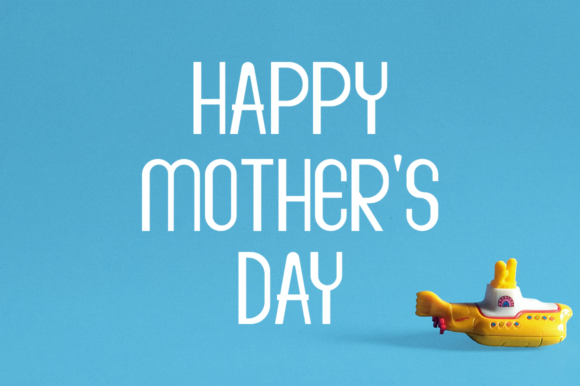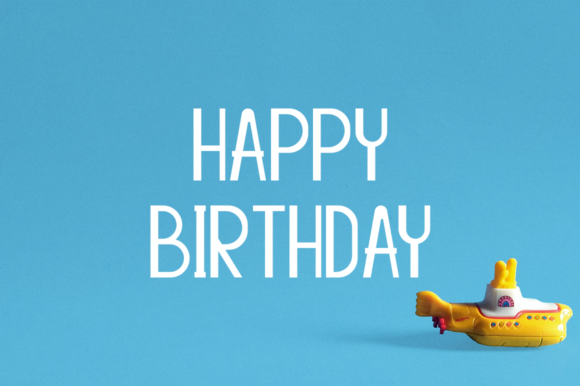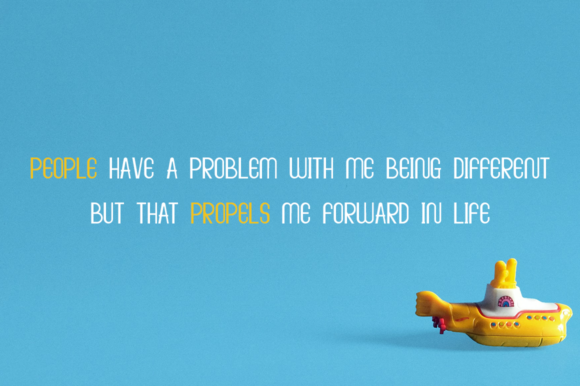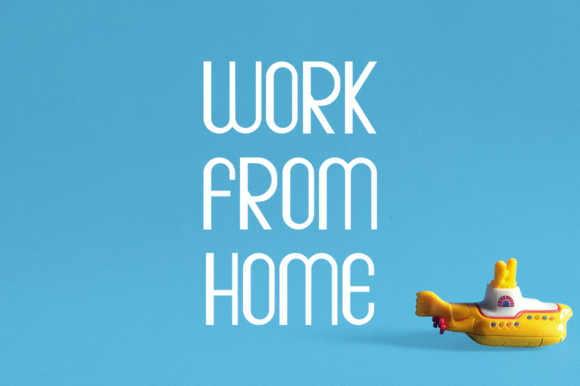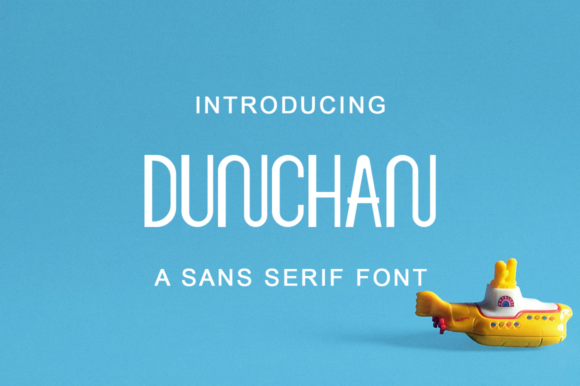
Introducing Dunchan: The Modern Sans Serif Font for Crafty Ideas
In the world of typography, fonts play a crucial role in conveying messages, expressing creativity, and setting the tone for a brand or project. For designers, crafters, and DIY enthusiasts, finding the perfect font can be a daunting task. However, if you’re looking for a modern and minimalistic sans serif font that can elevate your crafty ideas, look no further than Dunchan.
What is Dunchan Font?
Dunchan is a contemporary sans serif font designed to provide a clean and sophisticated look to various creative projects. Its original design makes it an excellent choice for a wide range of applications, from letterheads and titles to stationery and more. With its simple yet elegant design, Dunchan is perfect for those who appreciate minimalism and modernity.
Key Features of Dunchan Font
- Modern and Minimalistic Design: Dunchan boasts a sleek and modern design that is both clean and elegant. Its minimalistic approach ensures that your text remains clear and easy to read, making it perfect for body text and headings.
- Sans Serif Style: The sans serif style of Dunchan gives it a contemporary look that fits well with current design trends. This style is particularly effective in digital media, where clarity and readability are paramount.
- Versatility: One of the standout features of Dunchan is its versatility. It can be used in a variety of projects, including but not limited to, letterheads, titles, stationery, posters, and digital media.
- Ease of Readability: Despite its minimalist design, Dunchan does not compromise on readability. Its carefully crafted letterforms ensure that your text is easy to read, making it suitable for both print and digital use.
Use Cases for Dunchan Font
Dunchan’s versatility means it can be used in a multitude of projects. Here are some use cases where Dunchan can make a significant impact:
- Letterheads and Stationery: Add a professional touch to your business correspondence with Dunchan. Its modern look is sure to make your letterheads and stationery stand out.
- Posters and Flyers: For designers looking to create eye-catching posters and flyers, Dunchan can be a great choice. Its clear and bold lettering ensures your message gets across effectively.
- Digital Media: Whether you’re working on a website, blog, or social media graphics, Dunchan’s clean design ensures your content looks professional and engaging.
- Branding and Logos: For crafty ideas involving branding and logos, Dunchan can provide a sleek and modern aesthetic that appeals to a wide audience.
Why Choose Dunchan?
In a sea of fonts, why should Dunchan be your go-to choice? Here are a few reasons:
- Unique yet Versatile: Dunchan offers a unique look that sets it apart from more traditional fonts, yet it’s versatile enough to be used in a variety of contexts.
- Easy to Pair: Due to its neutral and modern design, Dunchan is easy to pair with other fonts, allowing for creative and harmonious typography.
- High Readability: In an age where digital media dominates, readability is key. Dunchan’s design prioritizes readability, making it an excellent choice for both digital and print media.
Dunchan is more than just a font; it’s a tool for creativity and expression. Its modern and minimalistic design makes it an excellent choice for designers and crafters looking to add a touch of sophistication to their projects. Whether you’re working on a professional project or a personal craft, Dunchan can help you achieve your desired aesthetic. With its versatility, readability, and unique look, Dunchan is poised to become a favorite among those who value clean and effective typography.
So, if you’re on the hunt for a font that combines modernity, minimalism, and versatility, look no further than Dunchan. It’s time to elevate your crafty ideas and projects with a font that truly understands the needs of modern designers and crafters.